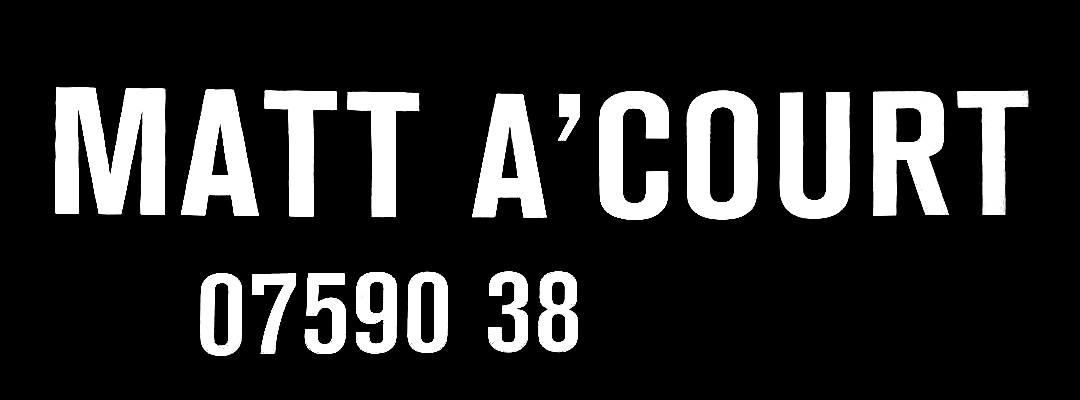
I've tried Font Squirrel and What The Font, the closest match I can come up with is Karben 205 Black, but the apostrophe and the number 7 aren't right, and some of the others element are very close but not an exact match. Can anyone identify this font 🙂
(From photo of side of van, then turned black and white, so excuse the dotty edges. But the shapes are clear enough. Vinyl done a long time ago by someone else.)
The font is/may be NissanAG Cnd (Bold).
The free Oswald from Google comes very close, though the apostrophe is curved at the end.
Take a look at Reforma Grotesk Demi.
See screenshot below. If you replace the inch mark with an apostrophe it should match nicely. Although the "R" is a little different.
The font is/may be NissanAG Cnd (Bold).
The free Oswald from Google comes very close, though the apostrophe is curved at the end.
Thanks, Nissan AG looks interesting (not too bad a copy) but can't actually find a usable font anywhere (looks like MyFonts used to supply it)
Oswold only comes in regular, so not really close enough